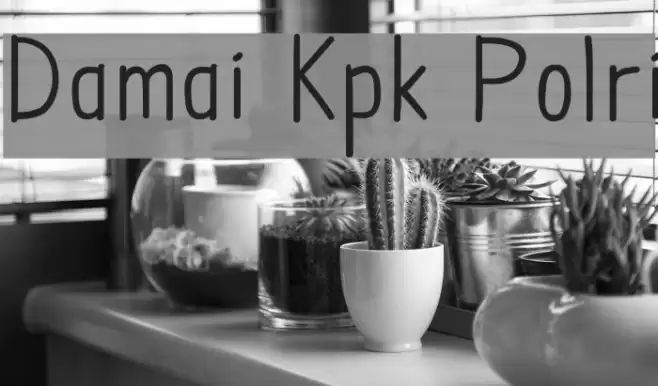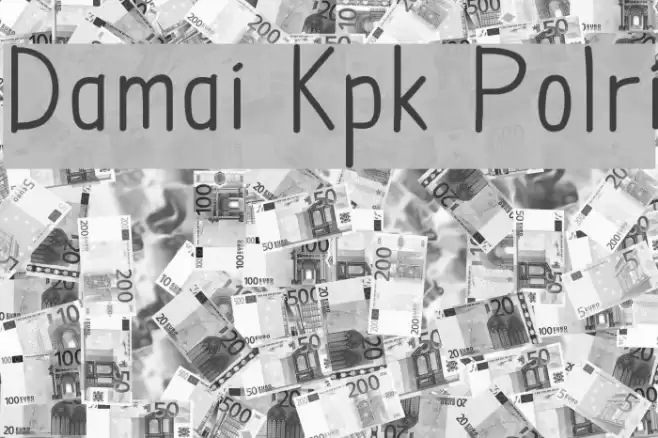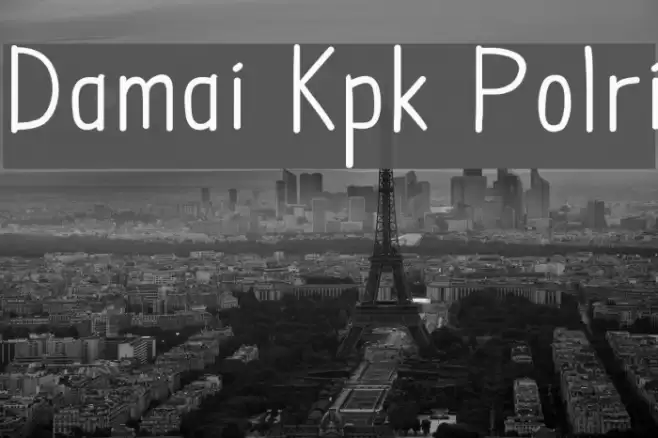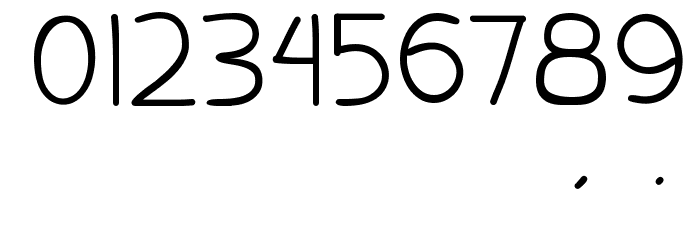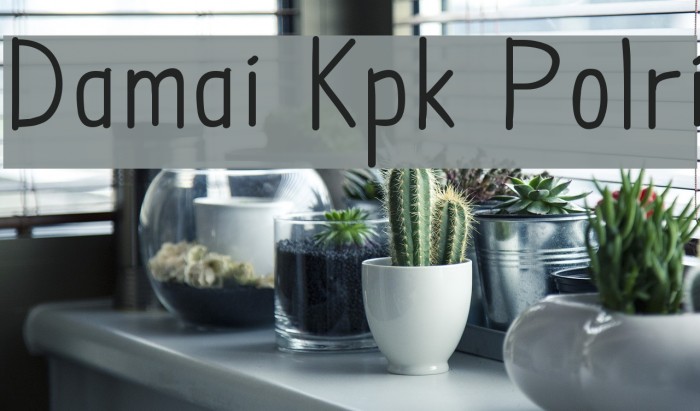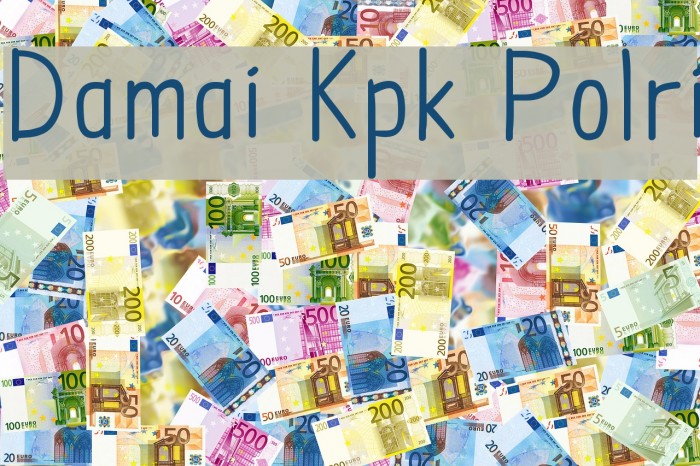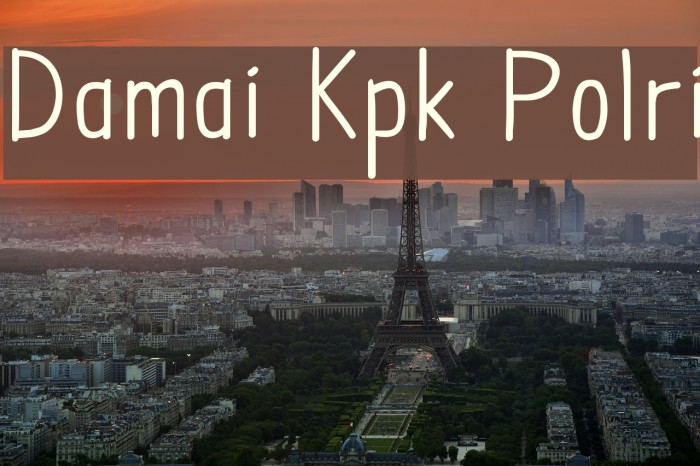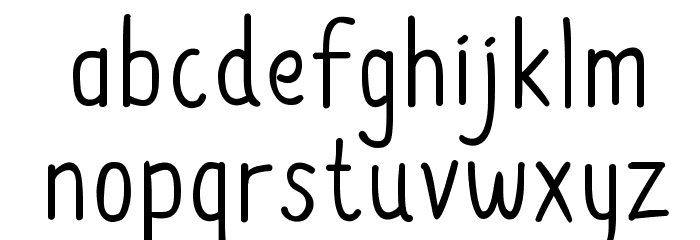
Damai Kpk Polri Font
Damai Kpk Polri Description
This font features a playful and casual handwritten style, characterized by its rounded edges and slightly irregular letterforms. The uppercase letters are bold and prominent, while the lowercase letters maintain a consistent flow with a friendly appearance. The numerals are clear and easy to read, complementing the overall informal aesthetic. The special characters are simple yet effective, fitting seamlessly with the rest of the font. This style is approachable and versatile, making it suitable for a variety of creative projects.
A playful, handwritten font with rounded edges and a casual style from Uncategorized fonts.
- Proposed Projects: Ideal for children's books, greeting cards, informal invitations, and playful branding.
- Overall Style: Casual
- Use Case: Headlines, Logos, Informal Text